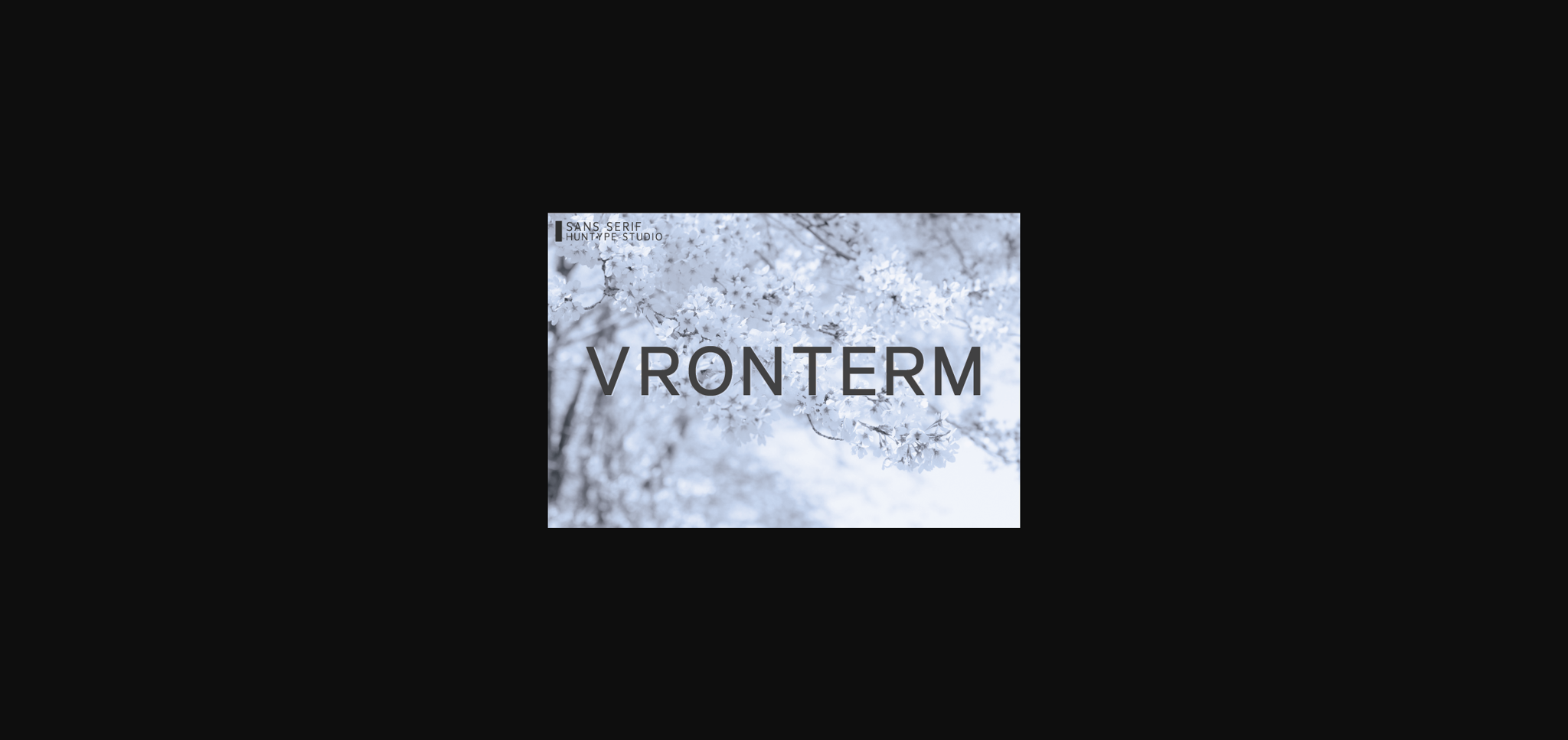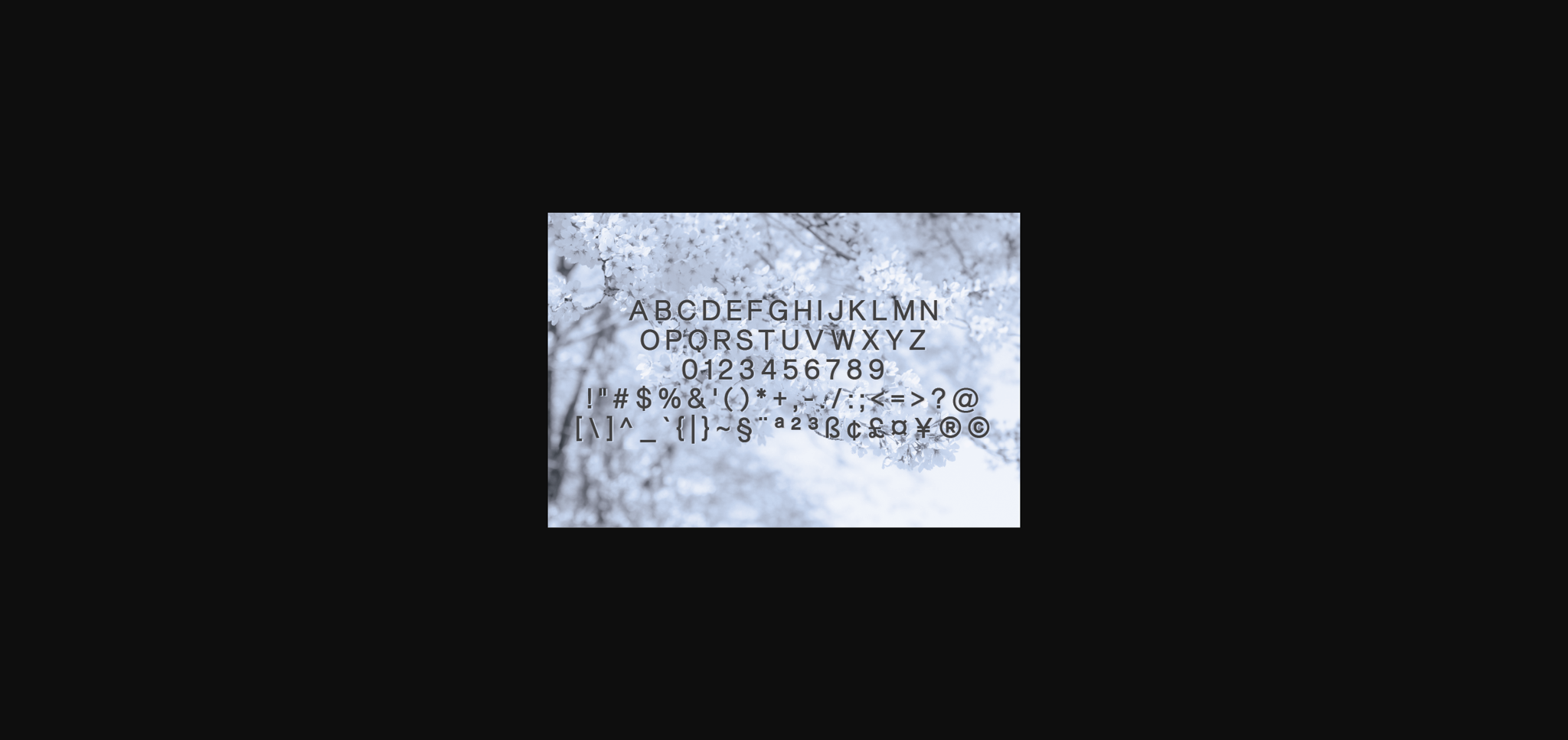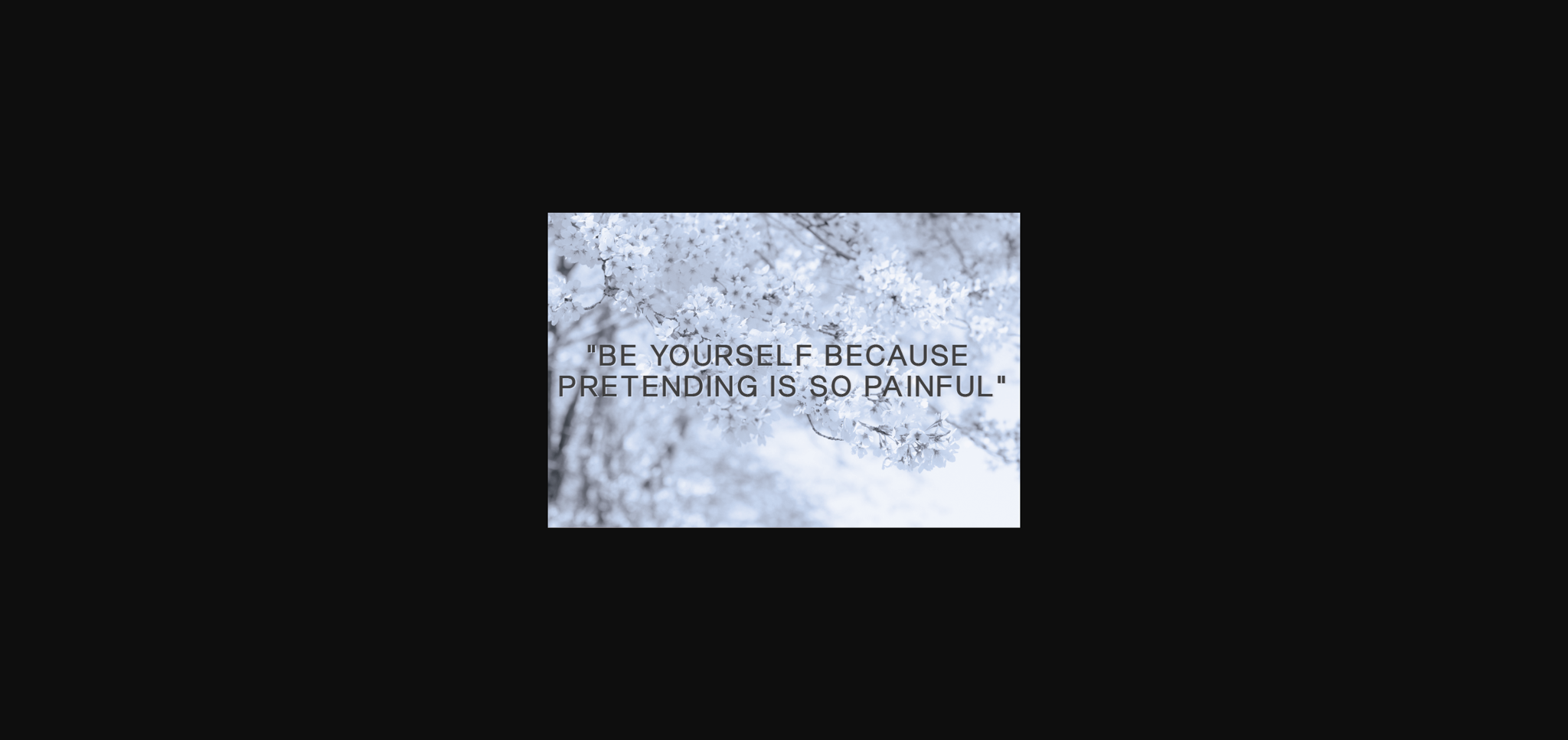
Vronterm is a simple and neat lettered sans serif font. No matter the topic, this font will be an incredibly asset to your fonts’ library, as it has the potential to elevate any creation.